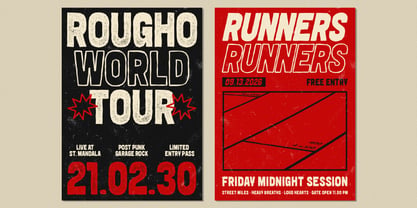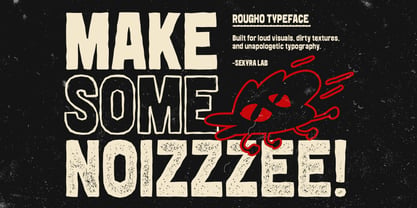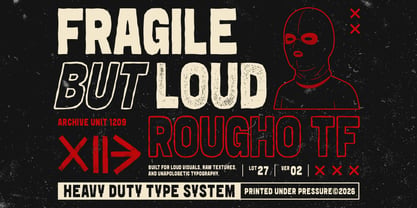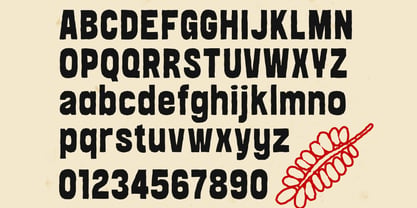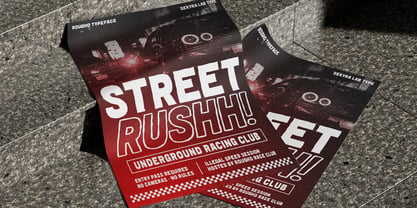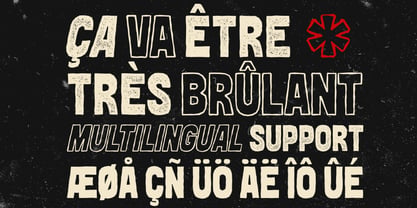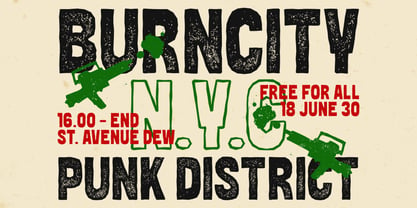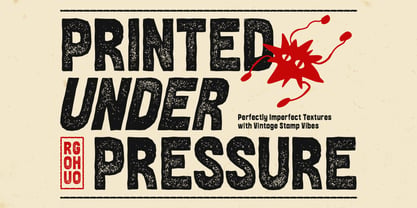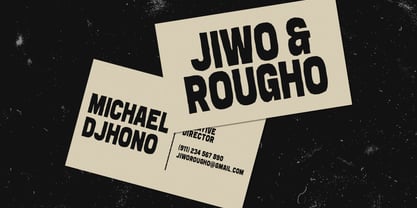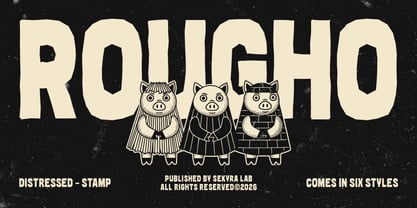
Rougho
by Sekyra Lab
The Rougho Font Family was designed by Hanif Al Irsyad and published by Sekyra Lab. Rougho contains 6 styles and family package options. More about this family
Rougho is a bold distressed display font designed to create loud visuals with raw texture and strong personality. Featuring rugged edges, imperfect details, and handcrafted letterforms, Rougho delivers an expressive vintage stamp aesthetic that feels gritty, energetic, and unapologetically bold.
Built for impactful typography, Rougho combines rough textures with condensed display proportions to help your designs stand out instantly. Whether you’re creating posters, album artwork, editorial layouts, branding, packaging, or promotional graphics, Rougho adds an authentic distressed character to every composition.
This typeface includes six versatile styles that allow you to explore different visual moods while maintaining a consistent bold identity.